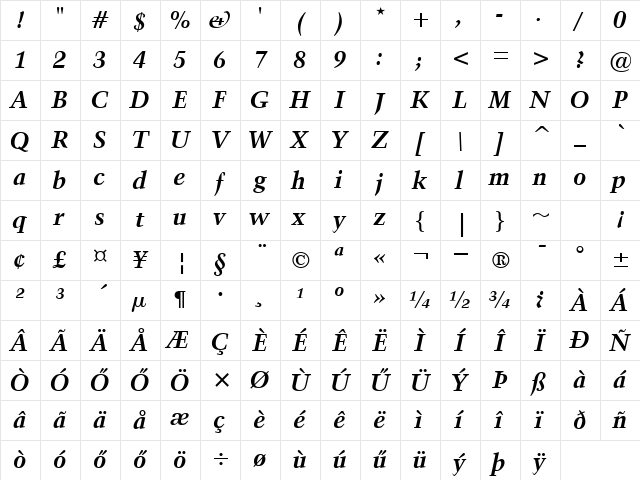
Complete H_Kuenstler 480 BT BoldItalic glyph index. Displaying only characters natively supported by H_Kuenstler 480 BT BoldItalic font.
H_Kuenstler 480 BT is a composed and adaptable typeface that performs quietly and consistently across a wide range of design contexts. The slanted form adds forward momentum and visual energy. Its bold stroke weight gives it real presence on the page.